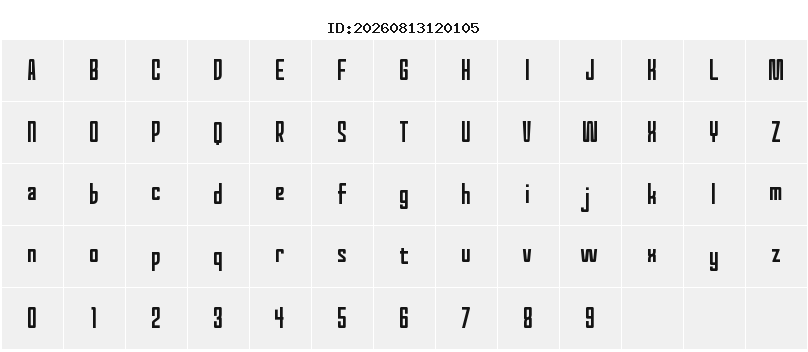
Red World Preview
• Font Name: Red World
• Font ID: Red World:Version 1.00
• Full Font Name: Red World
• Version: Version 1.00 November 8, 2014, initial release
• PostScript Name: RedWorld
• Character Count: 242
• Designer: Neale Davidson
• Manufacturer: Neale Davidson
About Red World.otf
Red World.otf is a modern, elegant sans-serif font designed for ultimate readability and visual harmony. Perfect for branding, headlines, web design, and print materials.